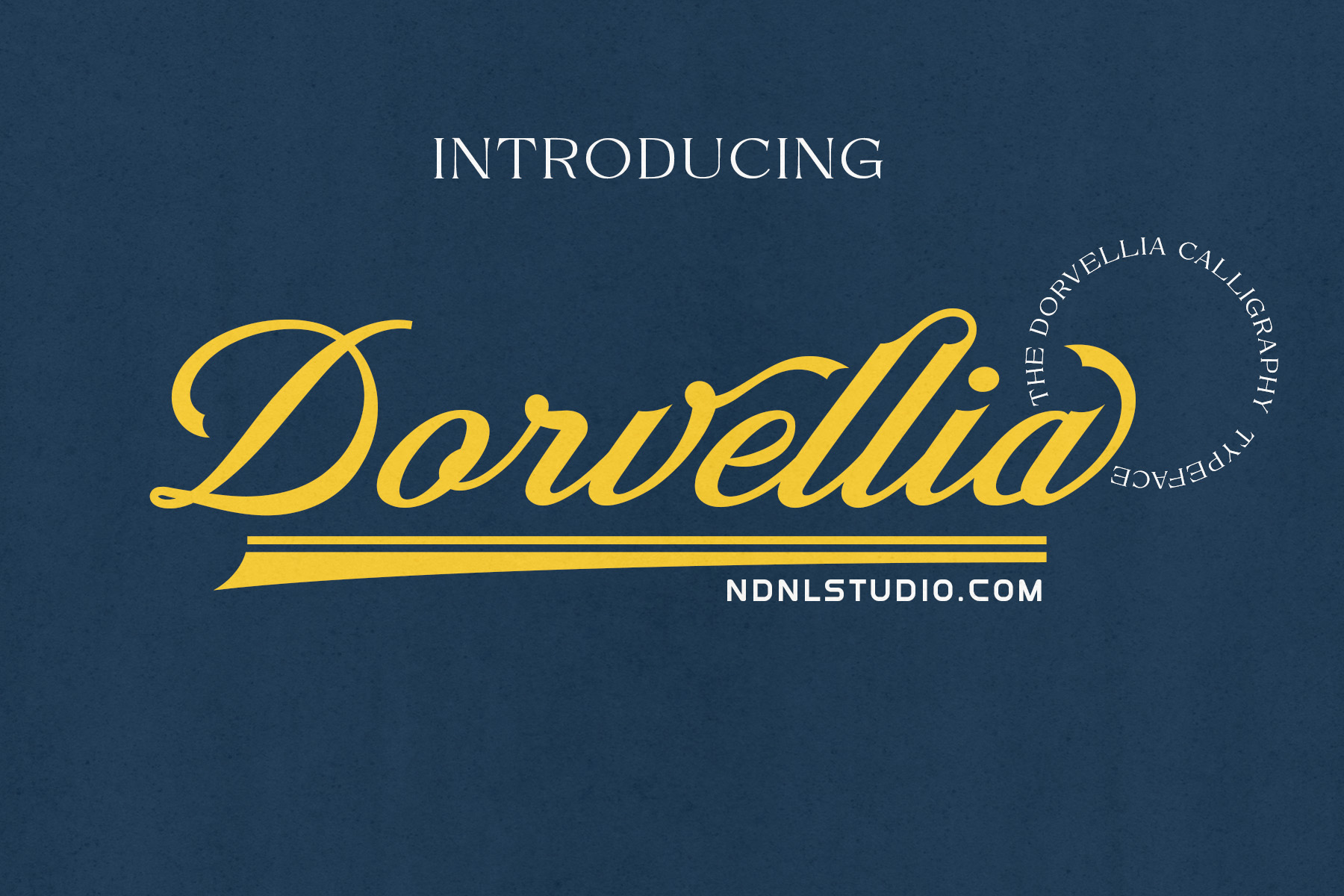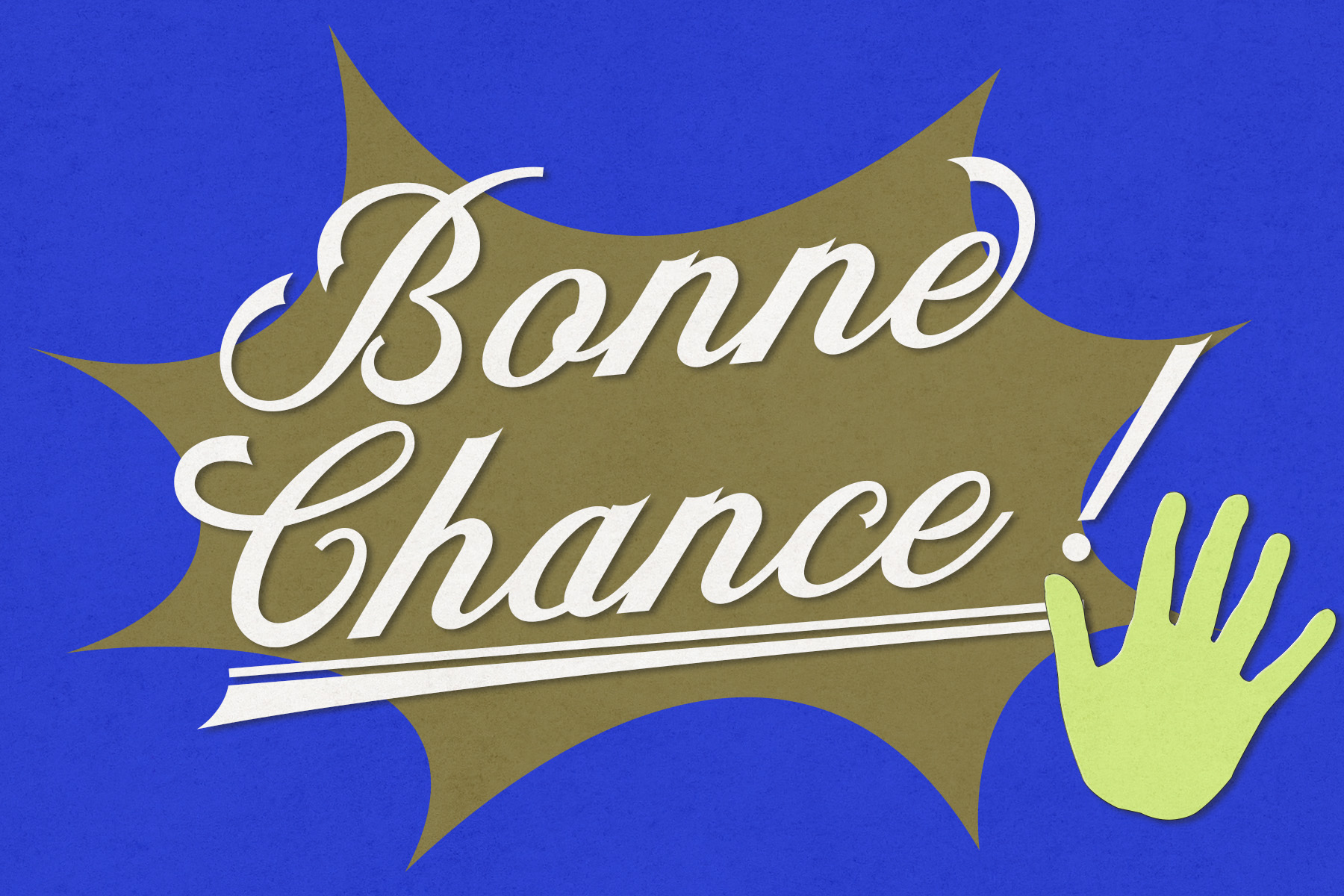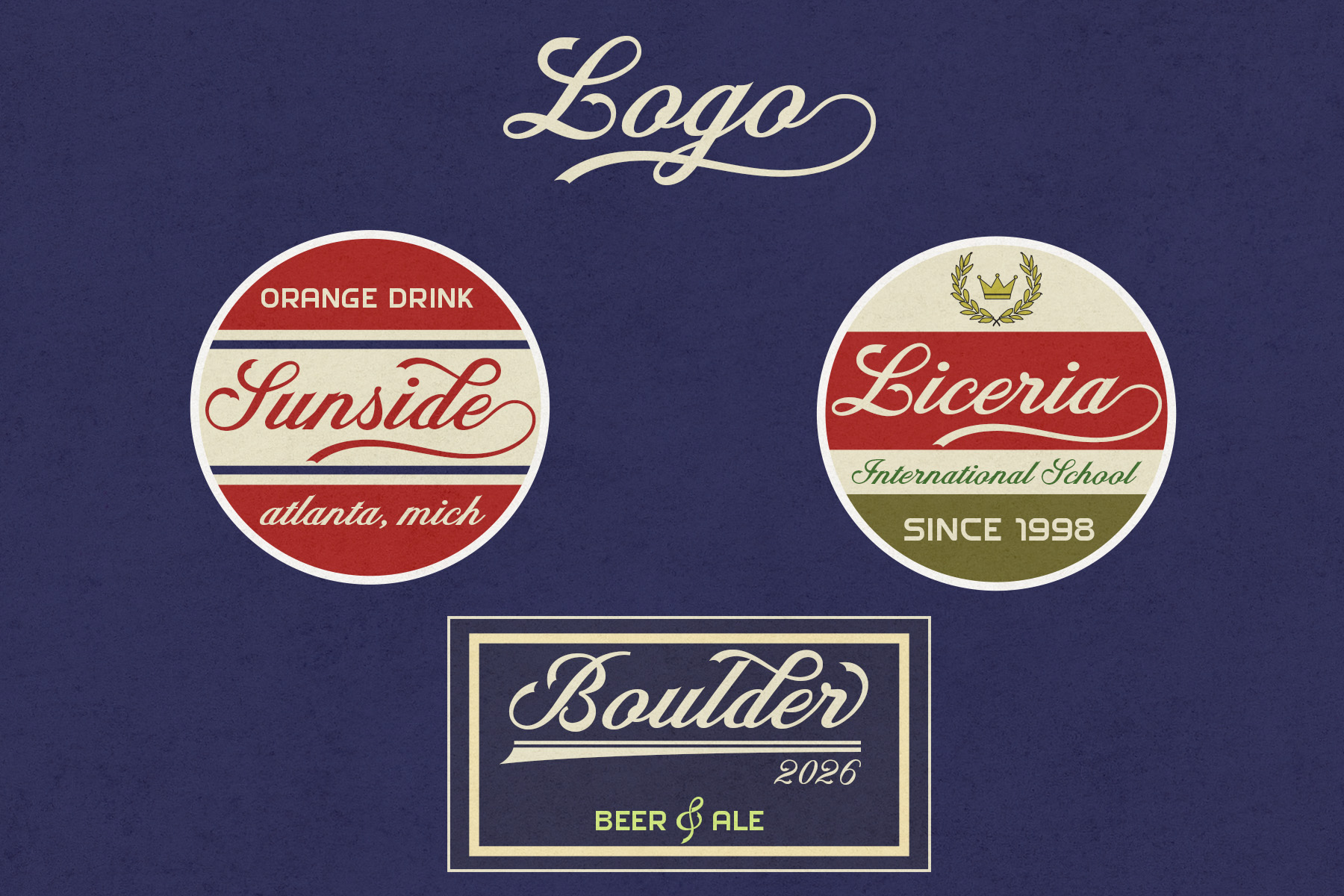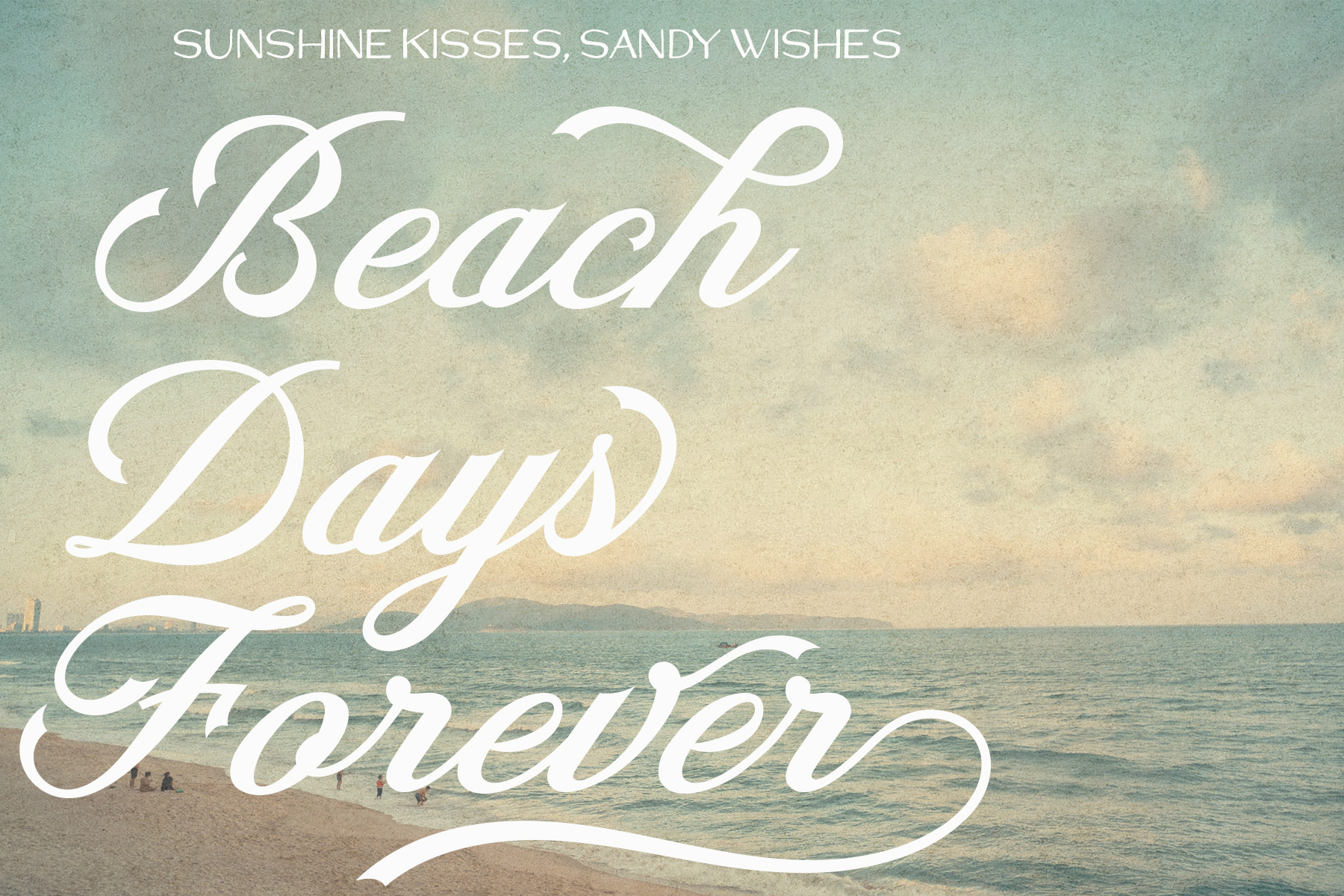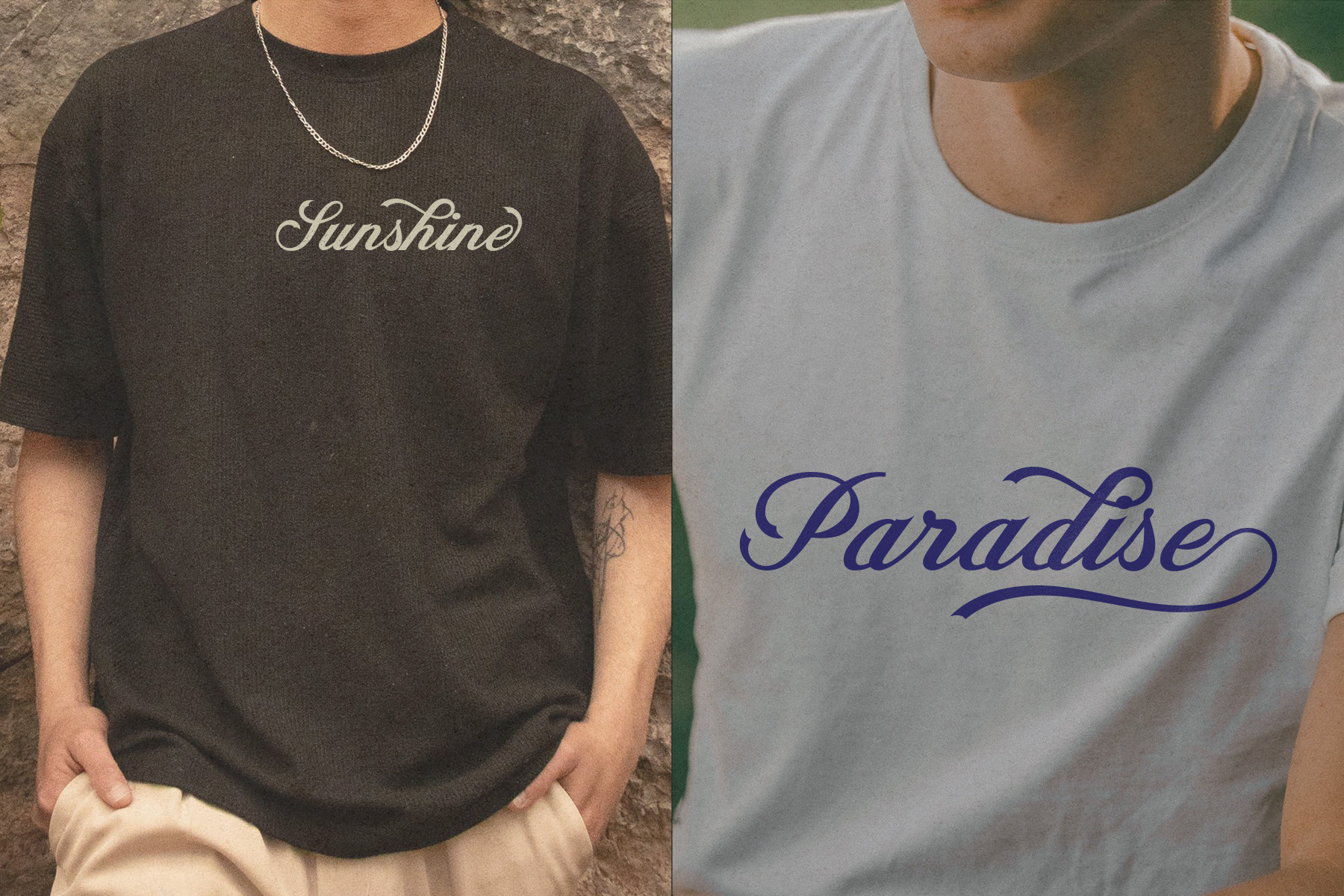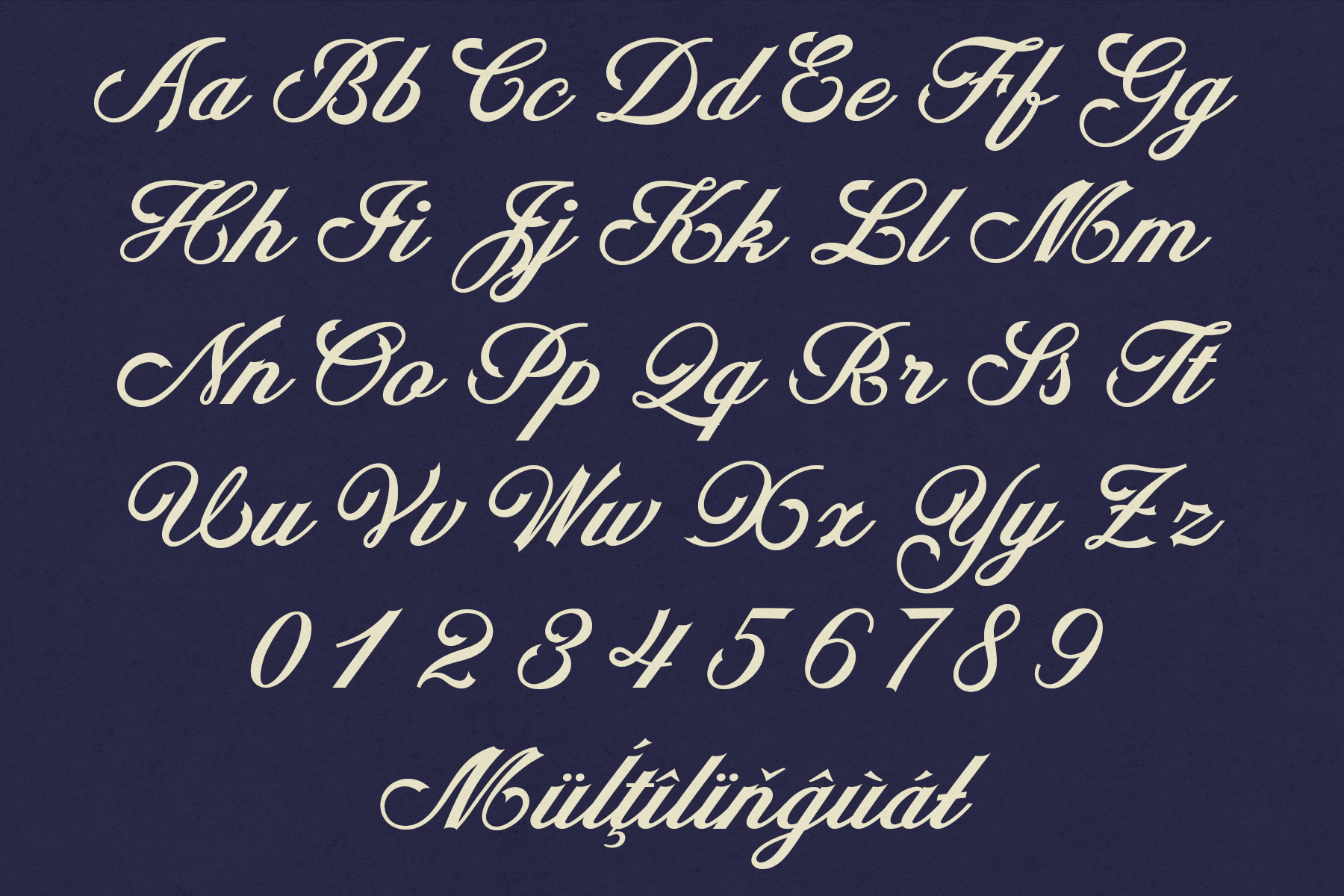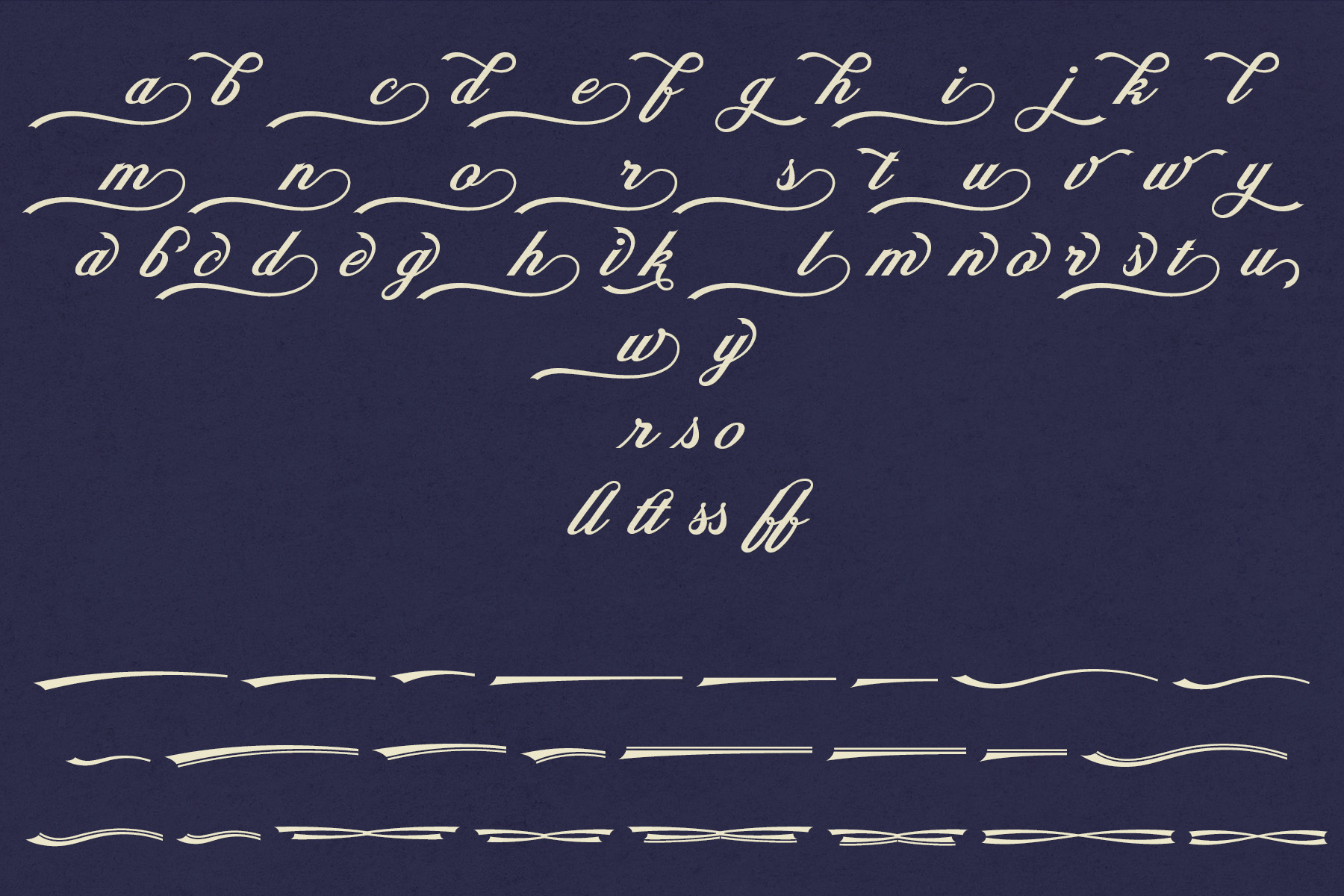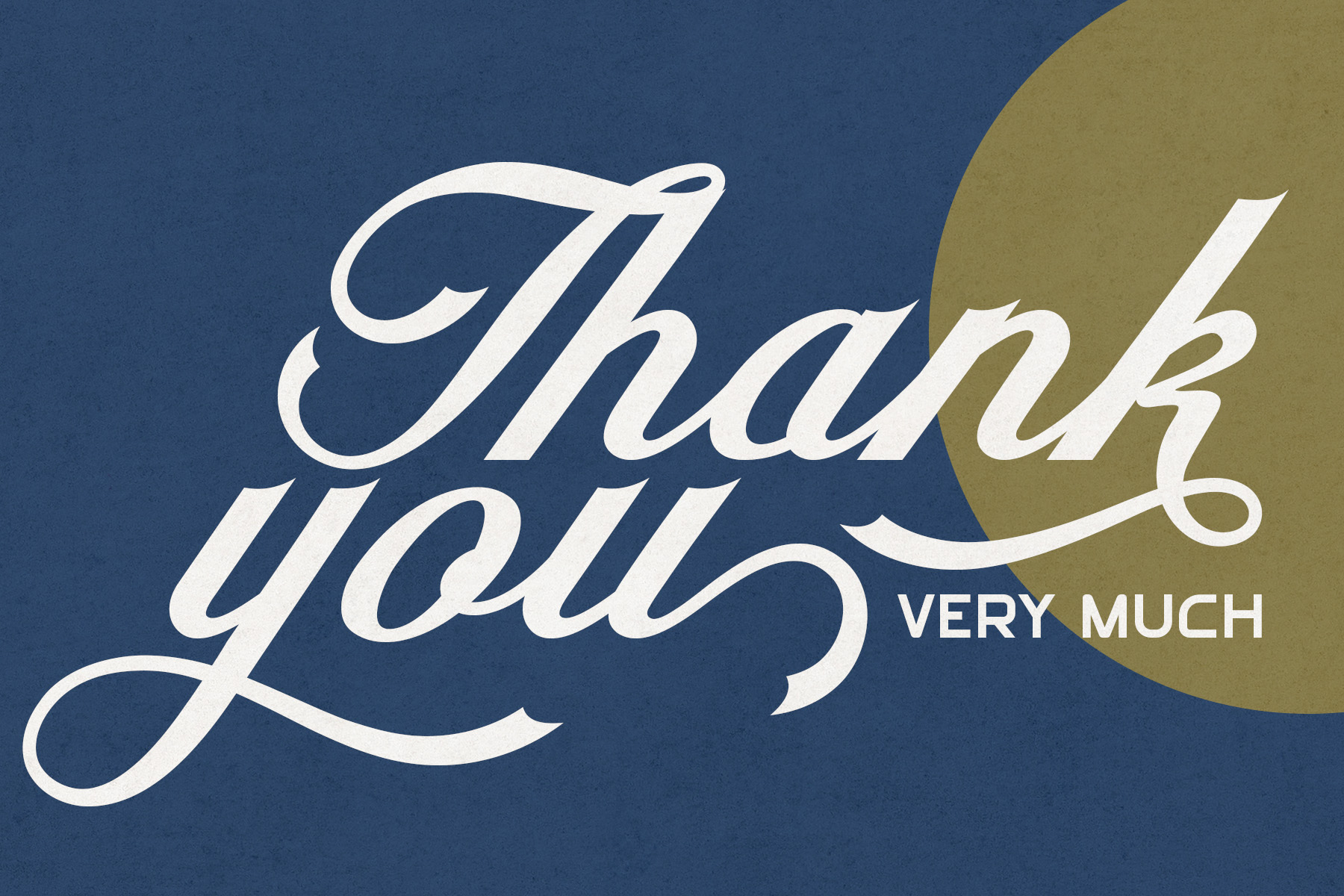
Introducing Dorvellia!
Dorvellia is an elegant and expressive script font created to bring a sense of luxury, romance, and sophistication to every design. With its graceful flowing strokes, refined letterforms, and beautiful calligraphic details, Dorvellia captures the charm of timeless handwriting with a modern touch.
Perfect for wedding invitations, luxury branding, logos, beauty products, fashion, social media, packaging, and elegant editorial designs. Dorvellia includes stylish alternates and decorative details that help you create a distinctive and memorable look.
– Ligatures
– Extended Character Set